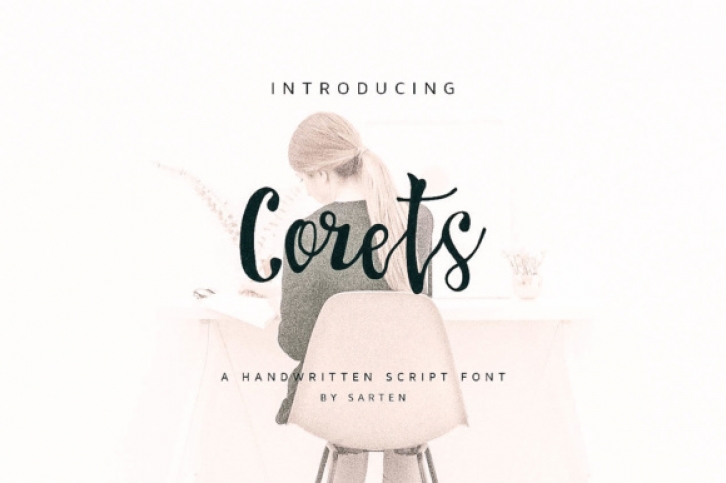
Corets is a cutesy, handwritten script font that can add a ton of whimsy and style to your projects. This font looks phenomenal in print works, and adds a relaxed yet stylish look to any design.